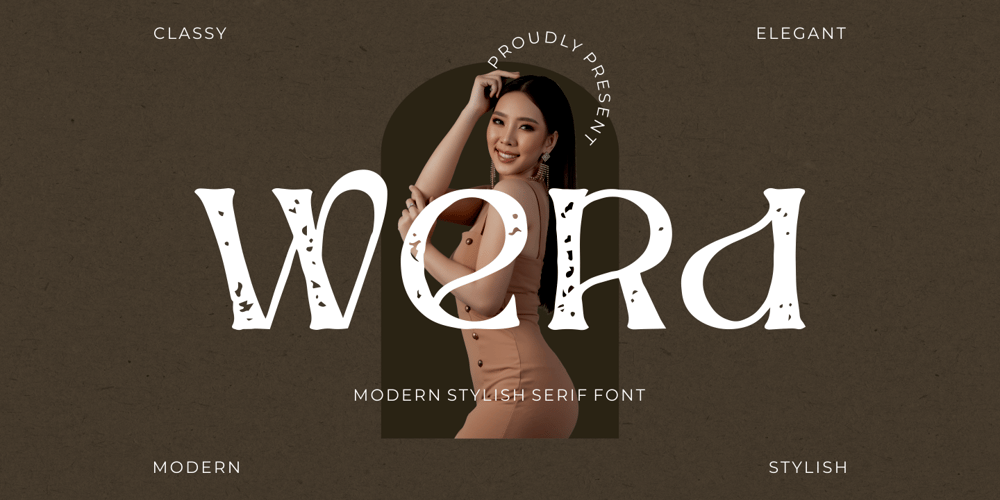
Werd Font Family was designed by Putra Novembria Candra Kusuma and published by Putracetol. Werd contains 6 styles and family package options. Introducing Werd – a modern stylish serif font inspired by elegant and luxury typography. With its unique and beautiful design, Werd is perfect for adding a professional touch to your designs. This versatile font can be used in various design projects, such as headings, flyers, greeting cards, product packaging, book covers, printed quotes, logotypes, apparel designs, album covers, and more.Werd features alternative characters that are divided into several OpenType features, including swashes, stylistic sets, stylistic alternates, contextual alternates, and ligatures. These OpenType features can be accessed using software programs that support OpenType, such as Adobe Illustrator, Adobe InDesign, Adobe Photoshop, Corel Draw X version, and Microsoft Word. This allows you to customize your typography and create unique compositions that suit your design needs.In your zip package, you’ll receive the Werd font files in otf, ttf, and woff formats, providing flexibility for different design projects. The font includes uppercase and lowercase letters, numerals, punctuation, and symbols, ensuring that you have all the essential elements for your designs.Werd also supports multilanguage characters, making it suitable for designing in different languages. Whether you’re creating designs in English, Spanish, French, or any other language, Werd has got you covered.In summary, Werd is a modern stylish serif font that offers elegant and luxury typography for various design purposes. With its OpenType features and multilanguage support, Werd provides versatility and customization options for your designs. Thank you for choosing Werd from our collection. Happy designing!